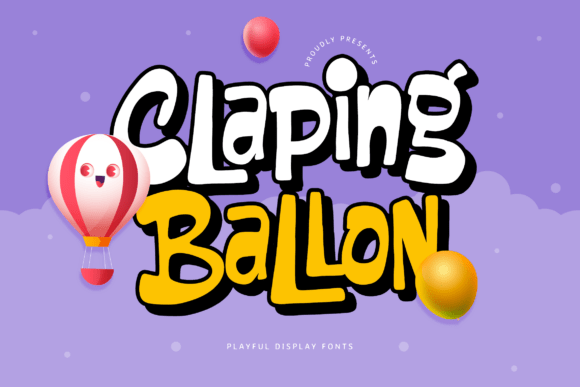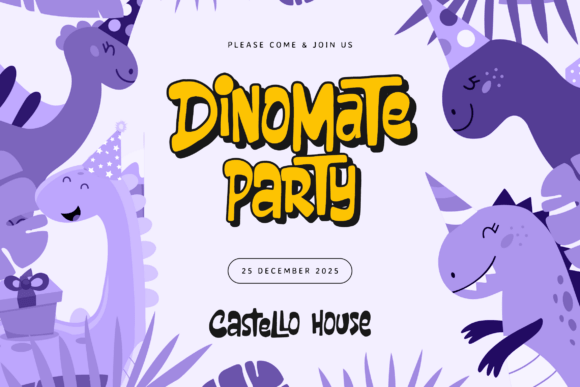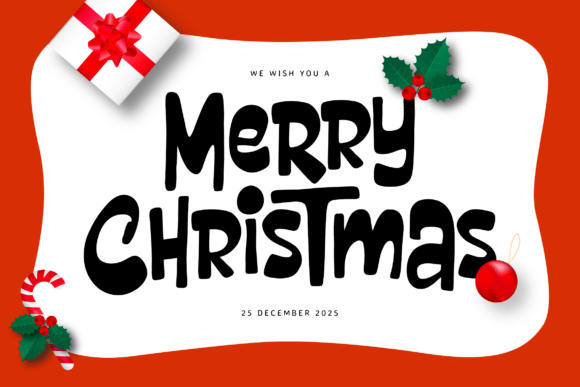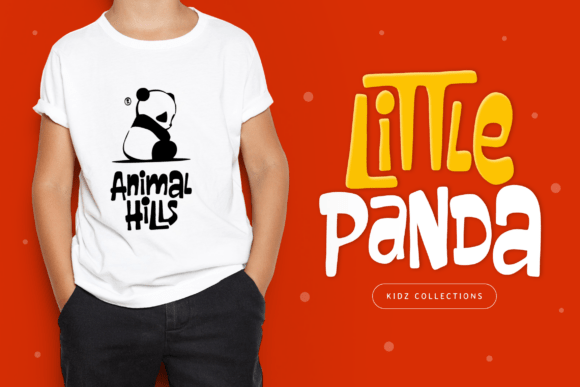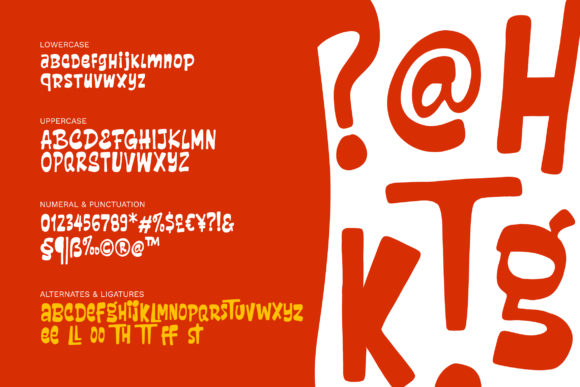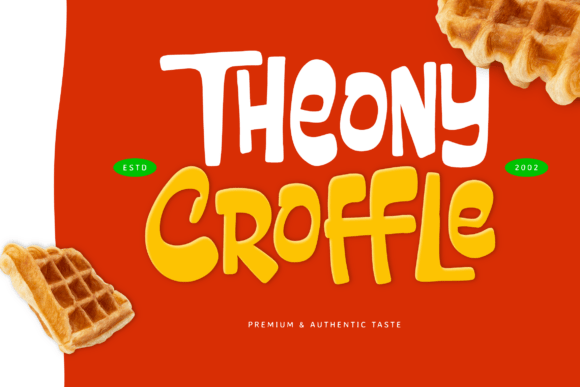
Get Ready to Pop with the Claping Ballon Font
Who hasn’t felt the thrill of blowing up a balloon and watching it soar into the air, filled with an infectious sense of joy and excitement? For designers, that same feeling can be captured with the perfect font – and we’ve found it in the Claping Ballon Font.
This playful display font is the ultimate party starter, designed to bring a smile to your designs and a spring to your step. With its bold, rounded, and friendly letterforms, the Claping Ballon Font is perfect for children’s designs, party invitations, and greeting cards. Its hand-crafted look and clean readability make it ideal for both print and digital use, while its exaggerated outlines and shadows give it a 3D, “inflated” appearance that’s sure to stand out.
Whether you’re designing for a kids’ brand, creating a festival poster, or just want to add some whimsy to your typography projects, the Claping Ballon Font is a valuable addition to any designer’s toolkit.
Claping Ballon Font Key Features
- Font Family: Claping Ballon is a unique, handwritten font family designed for creative and artistic purposes.
- Size: The font family includes multiple weights, ranging from Thin (100) to Black (900), offering flexibility for various design needs.
- Unique Characteristics: Claping Ballon features a distinctive, hand-drawn style with irregular letterforms, giving it a personal and emotive touch.
- Language Support: The font family supports a wide range of languages, including Latin, Cyrillic, and Greek scripts, making it suitable for global design projects.
Claping Ballon Font Review
Overall, I think the Claping Ballon Font has some great features, but it also has some areas for improvement.
- The font’s playful and whimsical feel makes it perfect for children’s books, party invitations, and other fun designs.
- The bold and colorful characters are easy to read, even at small sizes.
- The font is highly customizable, allowing for a wide range of color and size options.
- The font can be quite busy and overwhelming, especially when used in large blocks of text.
- The characters are not as well-suited for body text, and may not be the best choice for longer passages of reading.
- The font may not be compatible with all operating systems or devices, which could lead to display issues.
I think the Claping Ballon Font is a great choice for designers who want to add a touch of fun and whimsy to their projects. However, it’s not a good choice for body text or more serious designs. With some careful selection and usage, this font can be a valuable addition to any designer’s toolkit.
The Claping Ballon Font is commonly used in various design applications, including:
- Party and event decorations